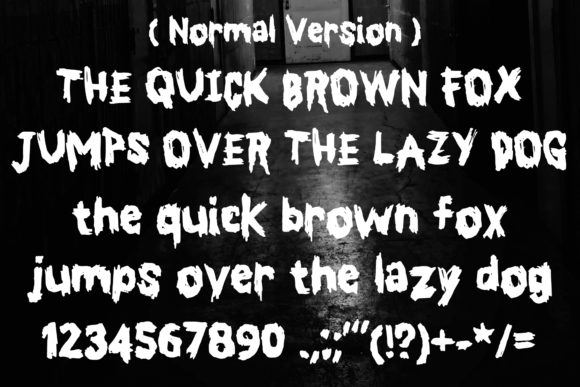
Slasher Horror Font
Slasher Horror is a very cool horror display font, there are 2 font versions in the package that you can combine each version to make your design more interesting. It will be perfect for your horror and Halloween-themed needs! You can use it for anything ranging from t-shirts and clothing, to your scary book designs, Halloween party needs, greeting cards, stickers, posters, banners, or anything that needs a horror touch. Try it to create fabulous designs and feel the horror and Halloween vibes with it!